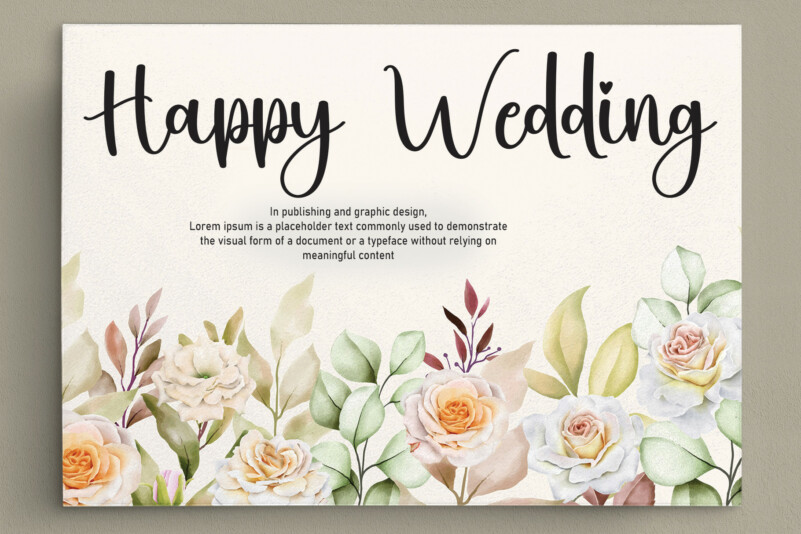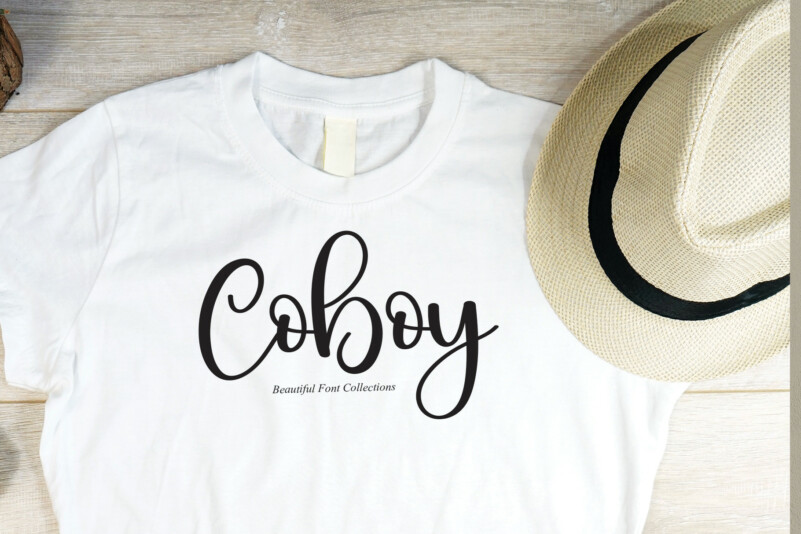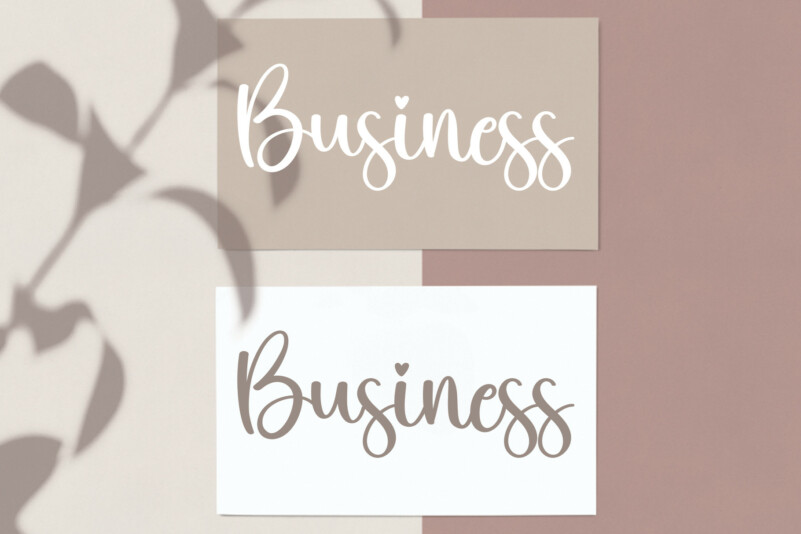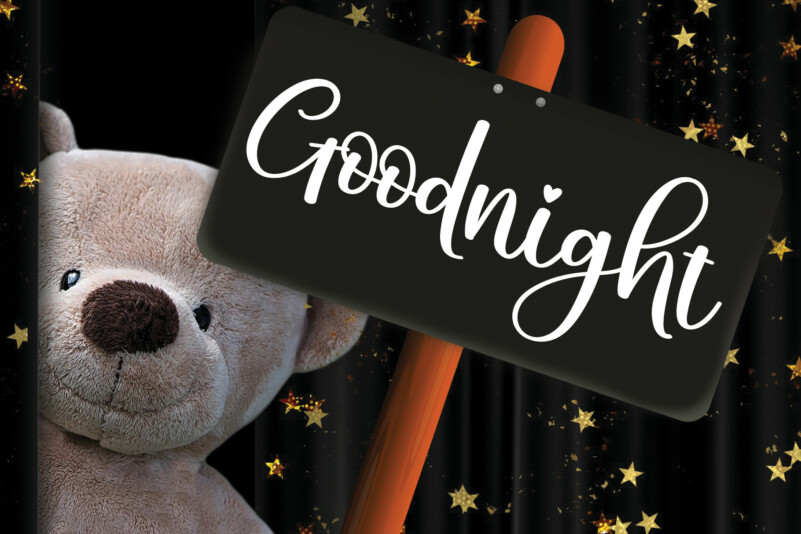
Panda Script Font
Panga’s letters are perfect for wall displays, wedding invitations, social media post logos, advertisements, product packaging, product designs, labels, photography, watermarks, invitations, stationery, and any project that requires a handwritten taste.